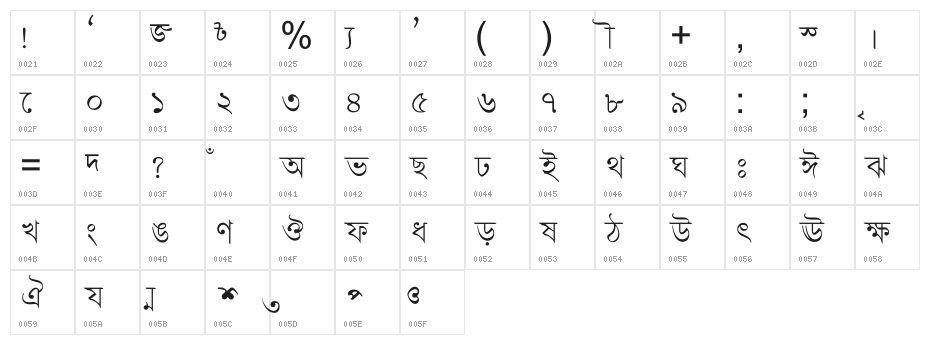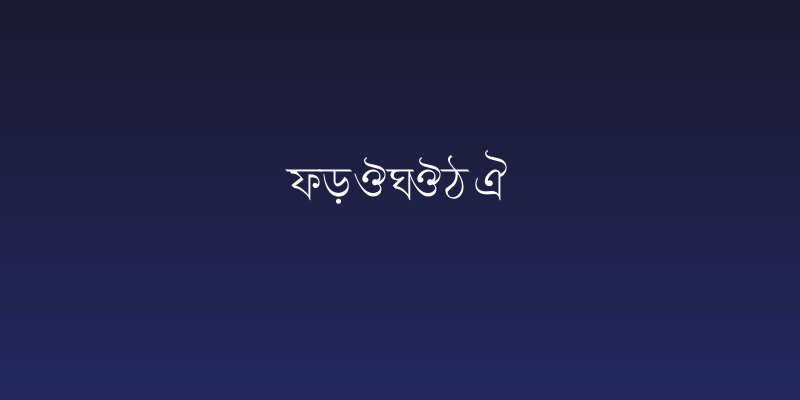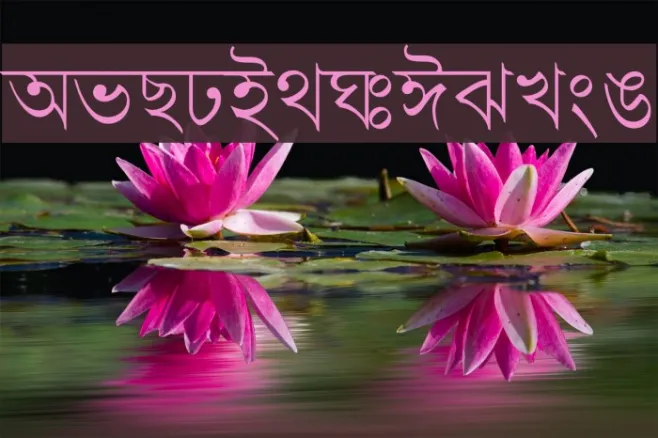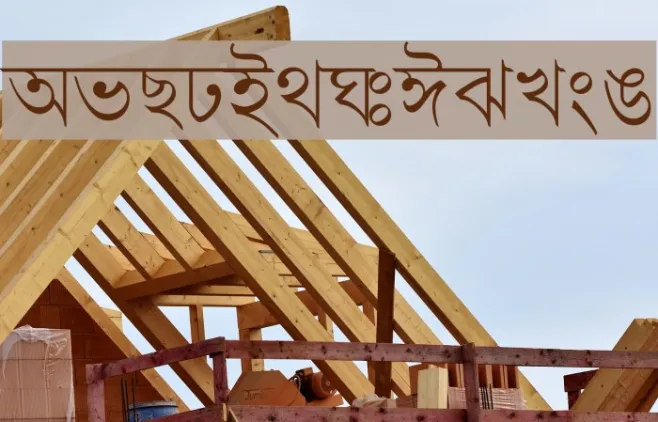
Progoty Font
Progoty Description
This font features a traditional Bengali script with elegant curves and intricate detailing. The characters are well-defined, showcasing a blend of classic and modern elements. The strokes are moderately thick, providing a balanced contrast that enhances readability. The numerals and special characters are designed to complement the overall style, maintaining consistency throughout the typeface. This font is suitable for both digital and print media, offering versatility in various applications.
| Use Case | Headlines, Body text, Cultural publications |
| Proposed Projects | Ideal for cultural publications, educational materials, and artistic projects that require a touch of traditional elegance. |